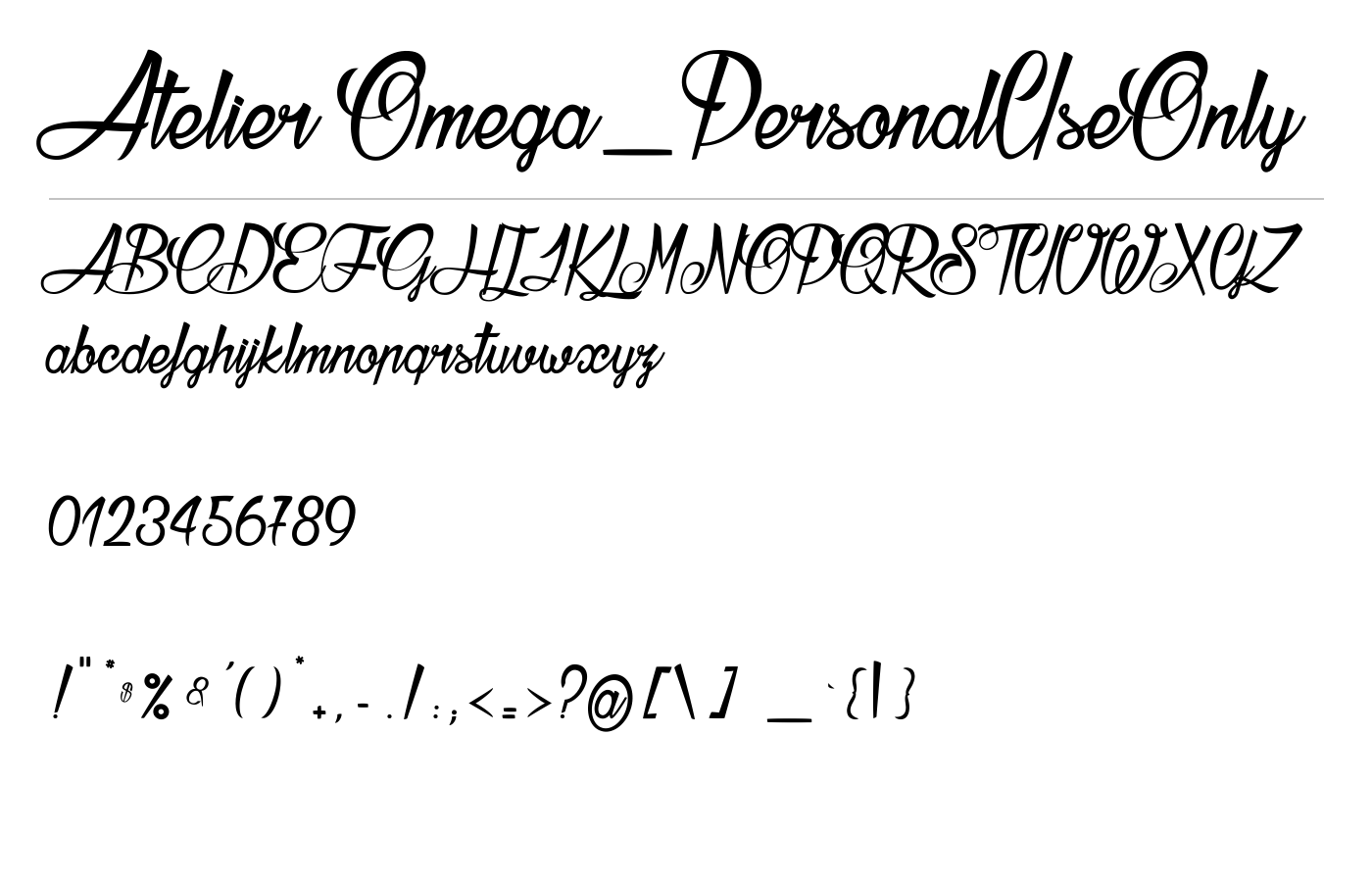
Atelier Omega is an elegant script font with a refined, handwritten feel characterized by its flowing, connected letterforms and stylish swashes. Its light weight and delicate curves create a sophisticated and artistic personality, making it perfect for luxury branding, invitations, and decorative headlines where a graceful and personal touch is desired. This font shines in designs that seek to convey class and creativity with a modern, stylish flair.
Atelier Omega_PersonalUseOnly Font
About Atelier Omega_PersonalUseOnly Font
| Font family | Atelier Omega_PersonalUseOnly Font |